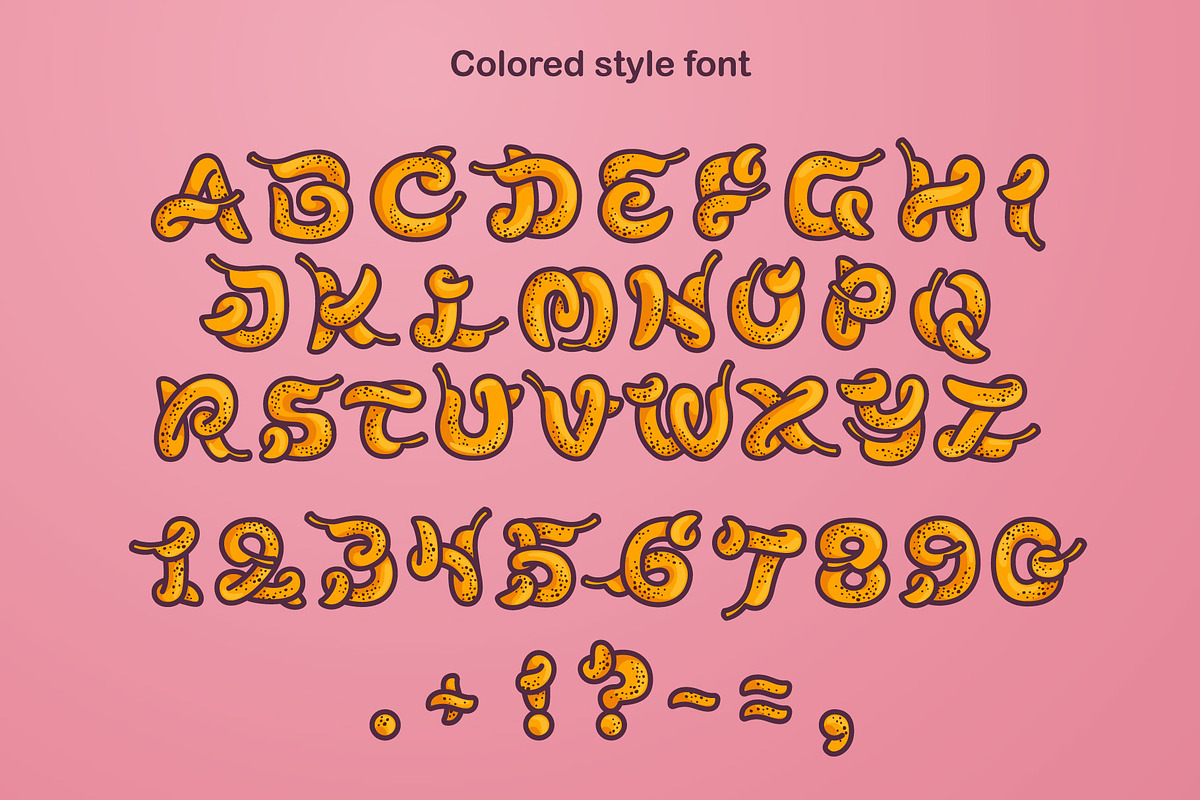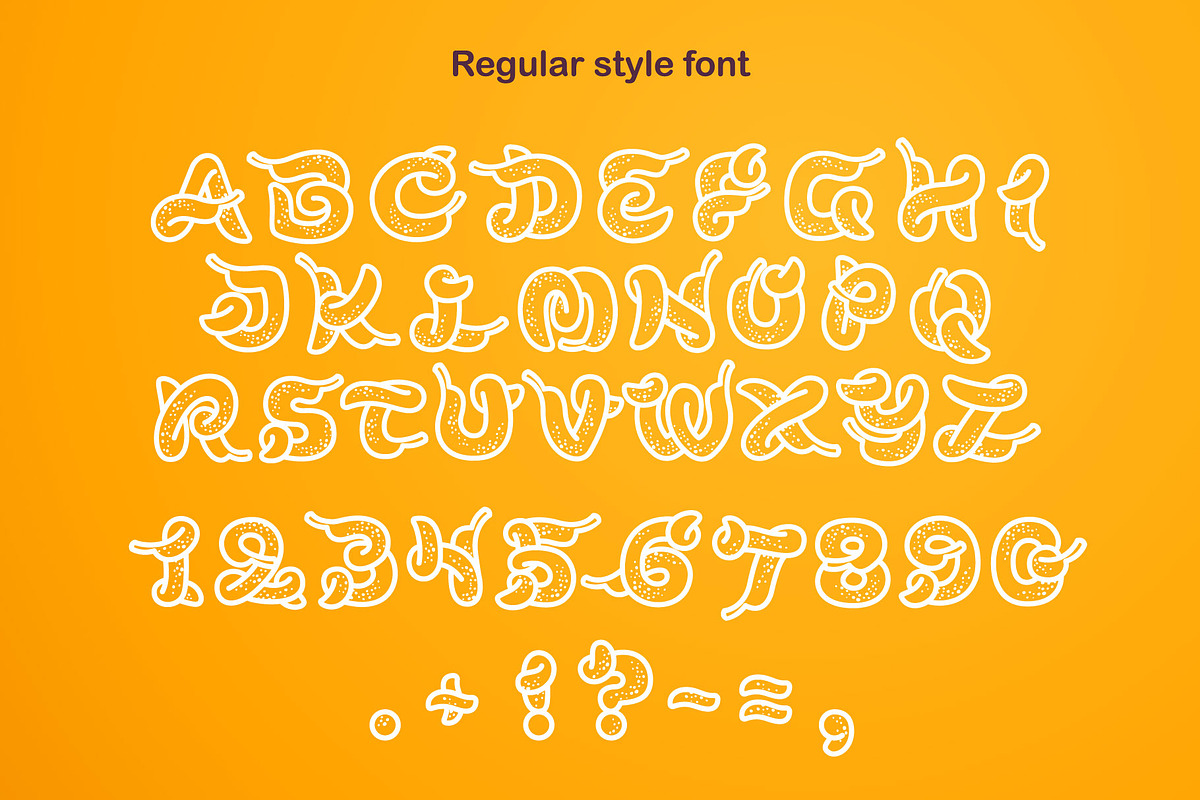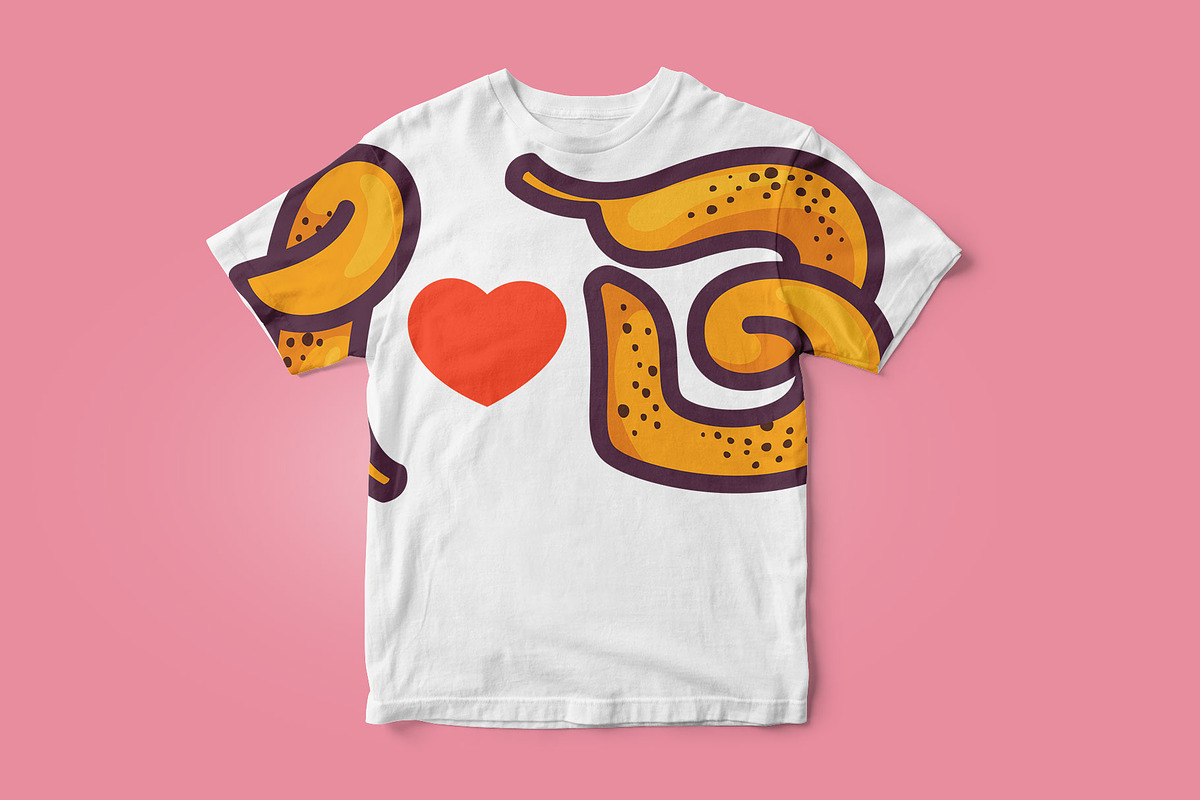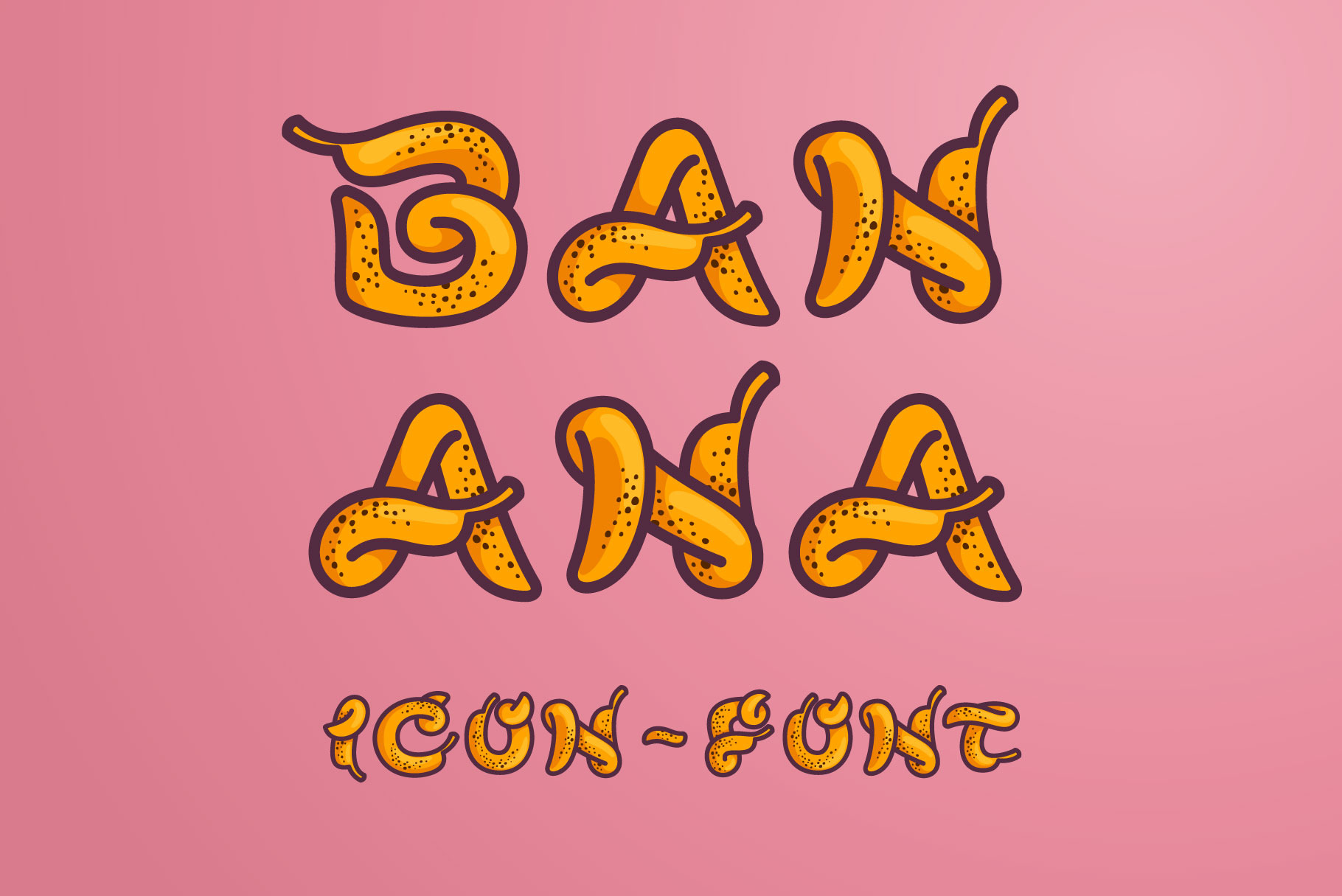
Made of Bananas fonts / icons
Alphabet made of bananas. Fruit handmade calligraphy for agricultural identity, restaurant cards, kids t-shirt, summer prints, etc.
- Regular and colored styles font. Uppercase only (lowercase glyphs are same)